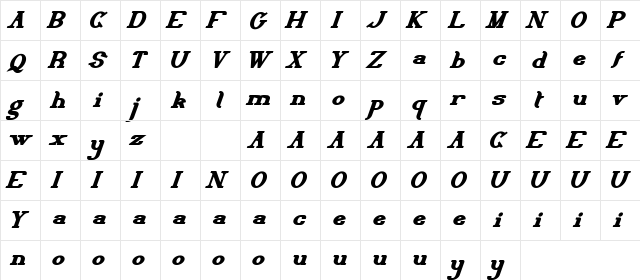
Delith Demo Bold Italic
Design Context for Delith Demo Typeface
Delith Demo is a composed and adaptable typeface that performs quietly and consistently across a wide range of design contexts. The slanted form adds forward momentum and visual energy. Its bold stroke weight gives it real presence on the page.
Pro Tip: Use Delith Demo for emphasis, pull quotes, and subheadings where its slanted energy can add rhythm to the layout.